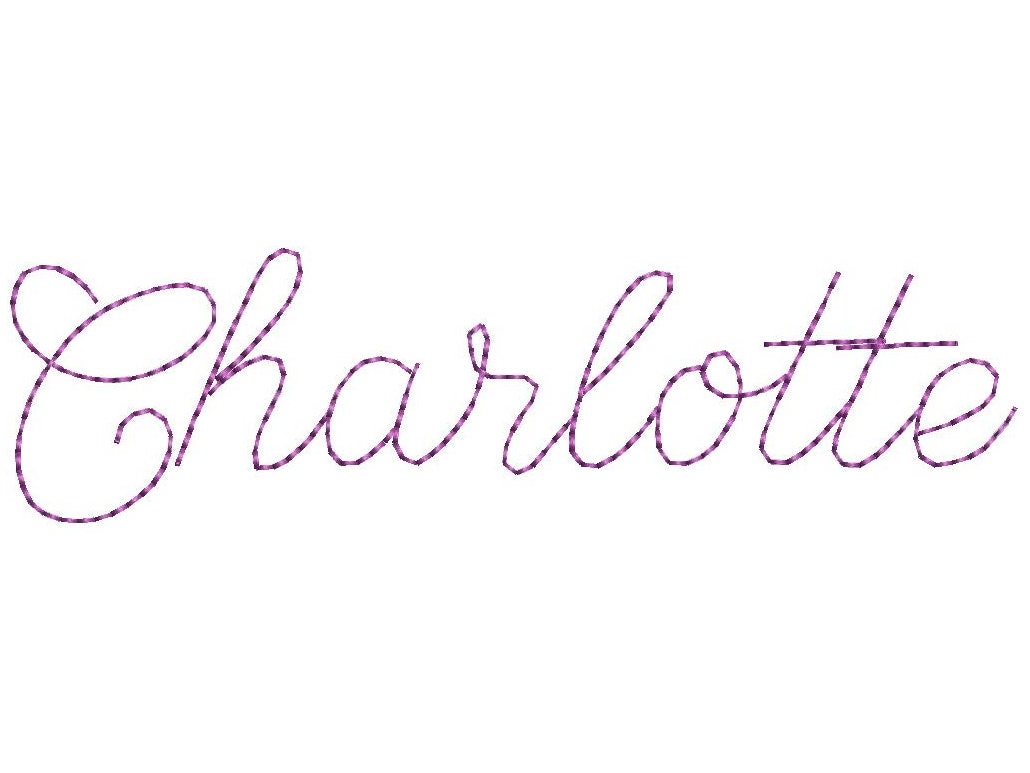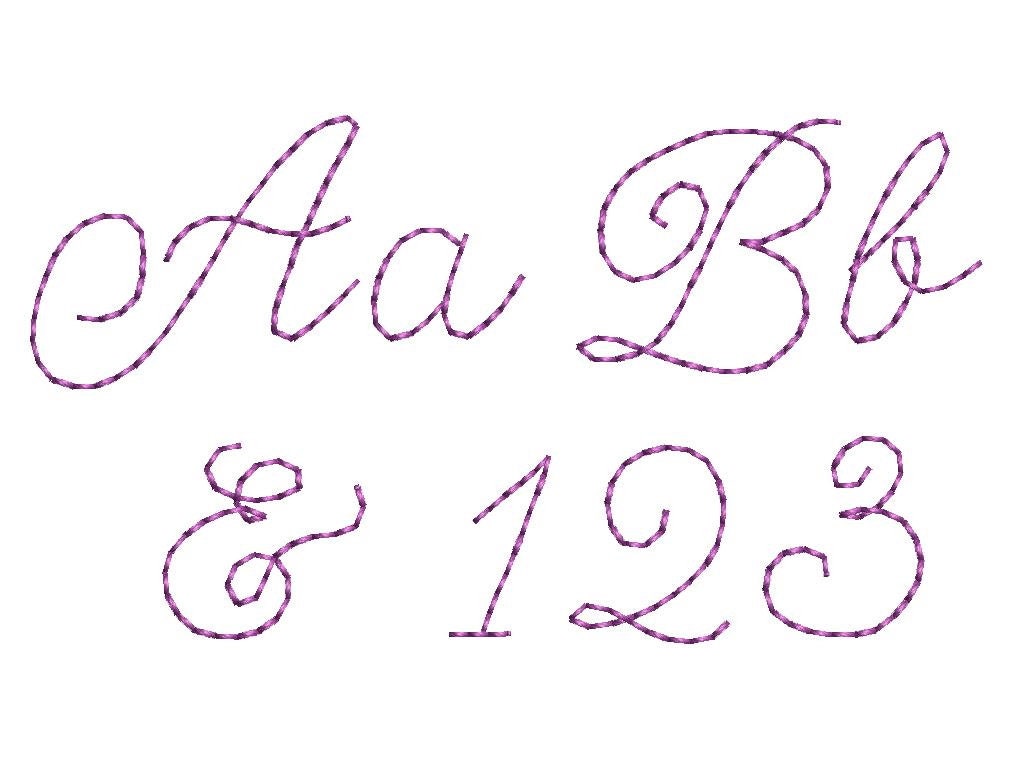
Quick light bean stitch Thin Line FONT machine embroidery designs assorted mini sizes, handwritten alphabet letters, kids name, BX included
Whole alphabet: uppercase and lowercase letters, numbers and ampersand &